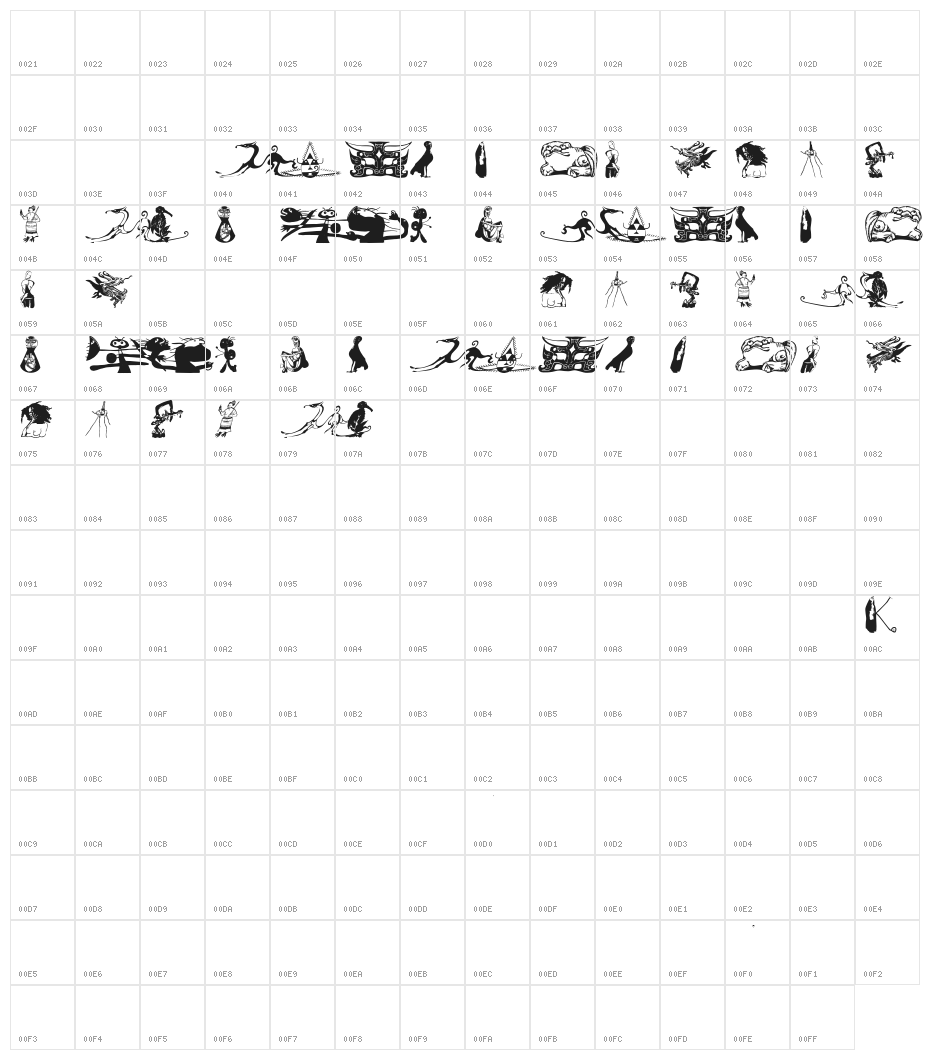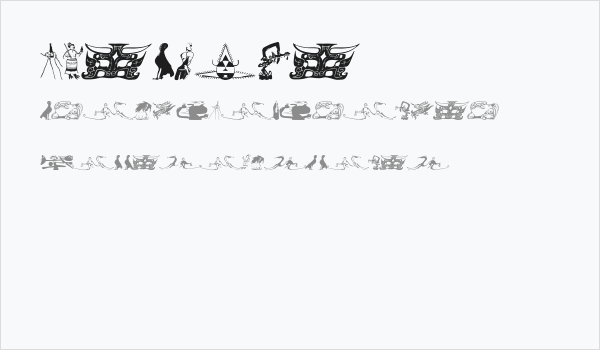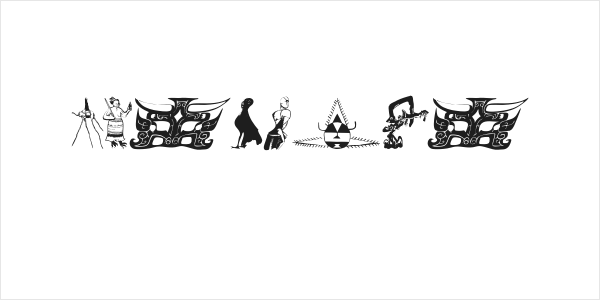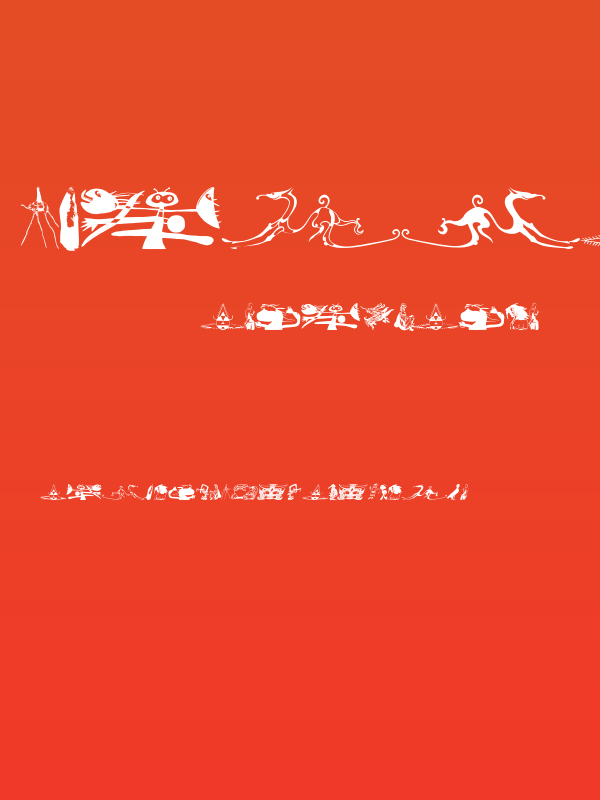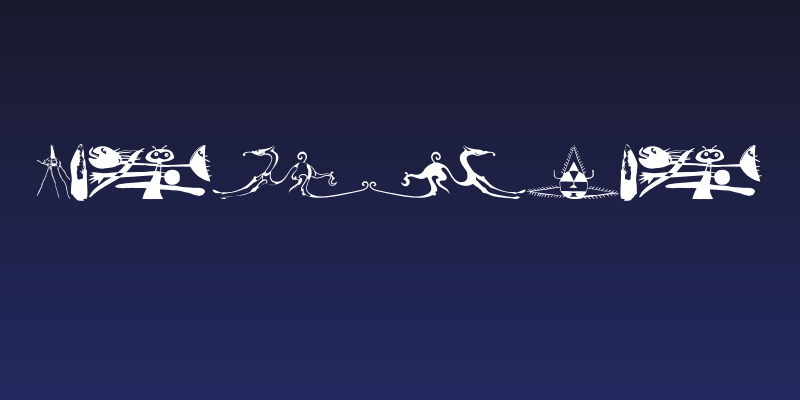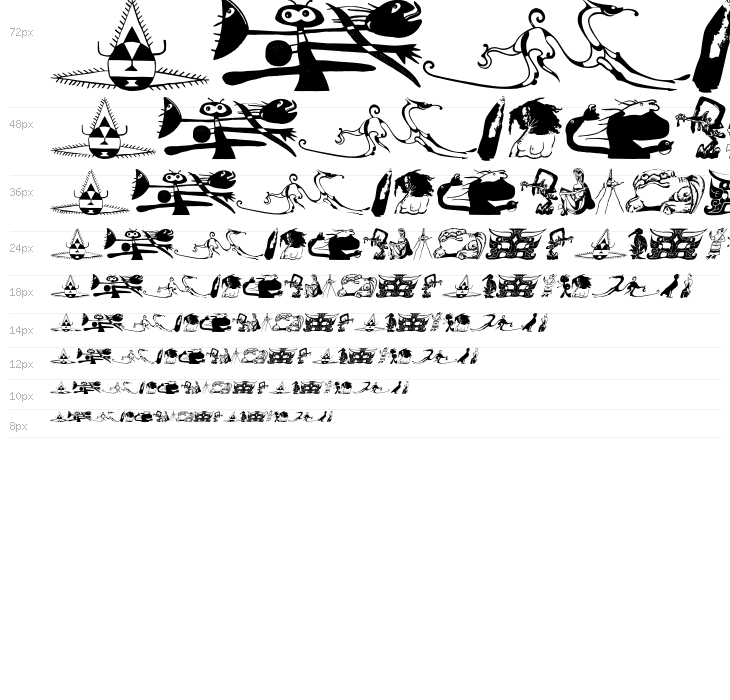
IdolsTwo Font
IdolsTwo Description
This font is a highly decorative and artistic collection of characters, each represented by unique and intricate illustrations. The characters are composed of various abstract and figurative elements, including mythical creatures, tribal motifs, and stylized human figures. The design is bold and visually striking, with each character forming a small piece of art. This font is not suitable for body text due to its complexity but serves as an excellent choice for creative and thematic projects where visual impact is paramount.
Use CaseLogos, Headlines, Artistic projects
Proposed ProjectsIdeal for use in creative projects such as posters, album covers, themed event invitations, or any design requiring a unique and artistic touch.